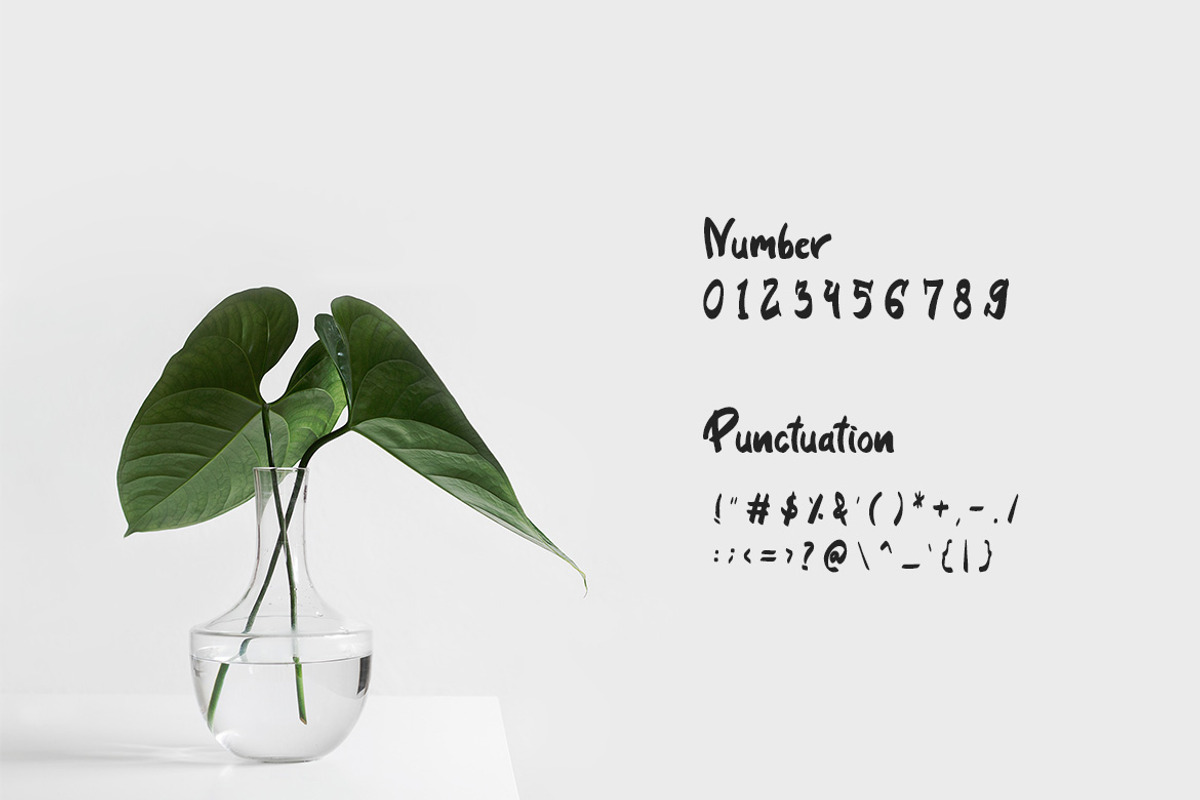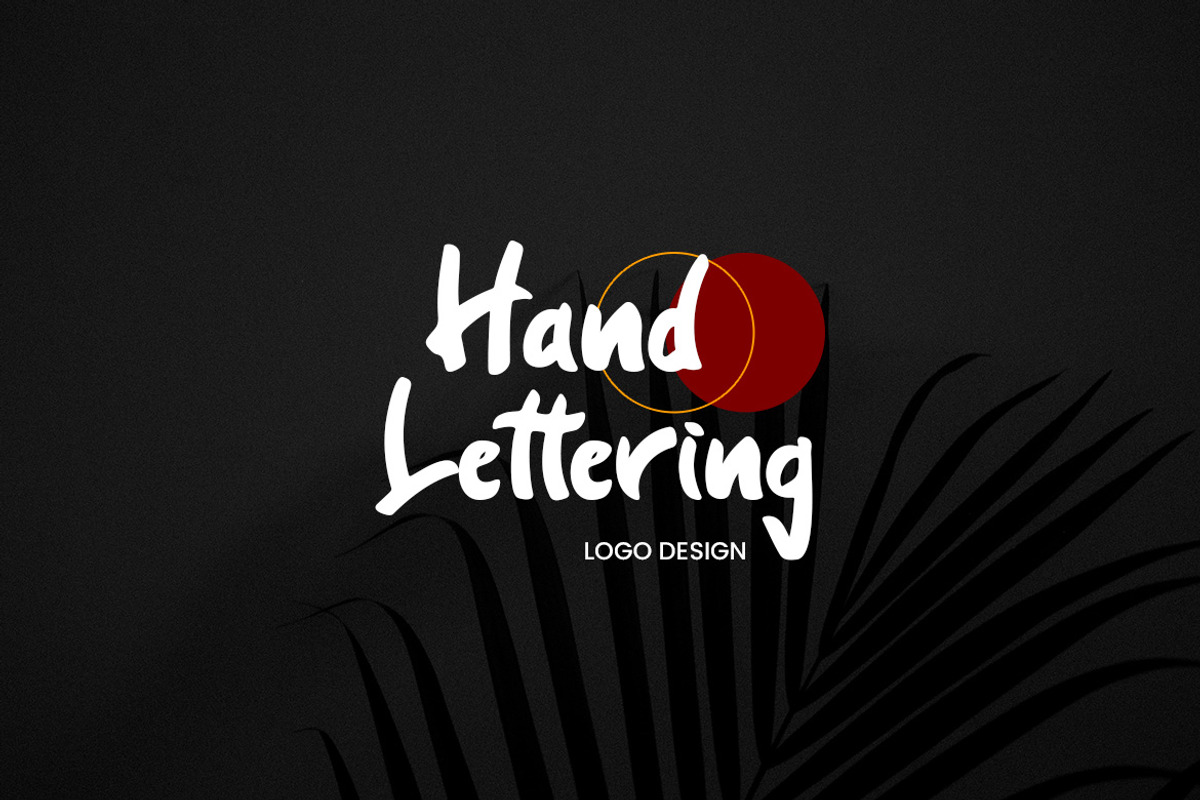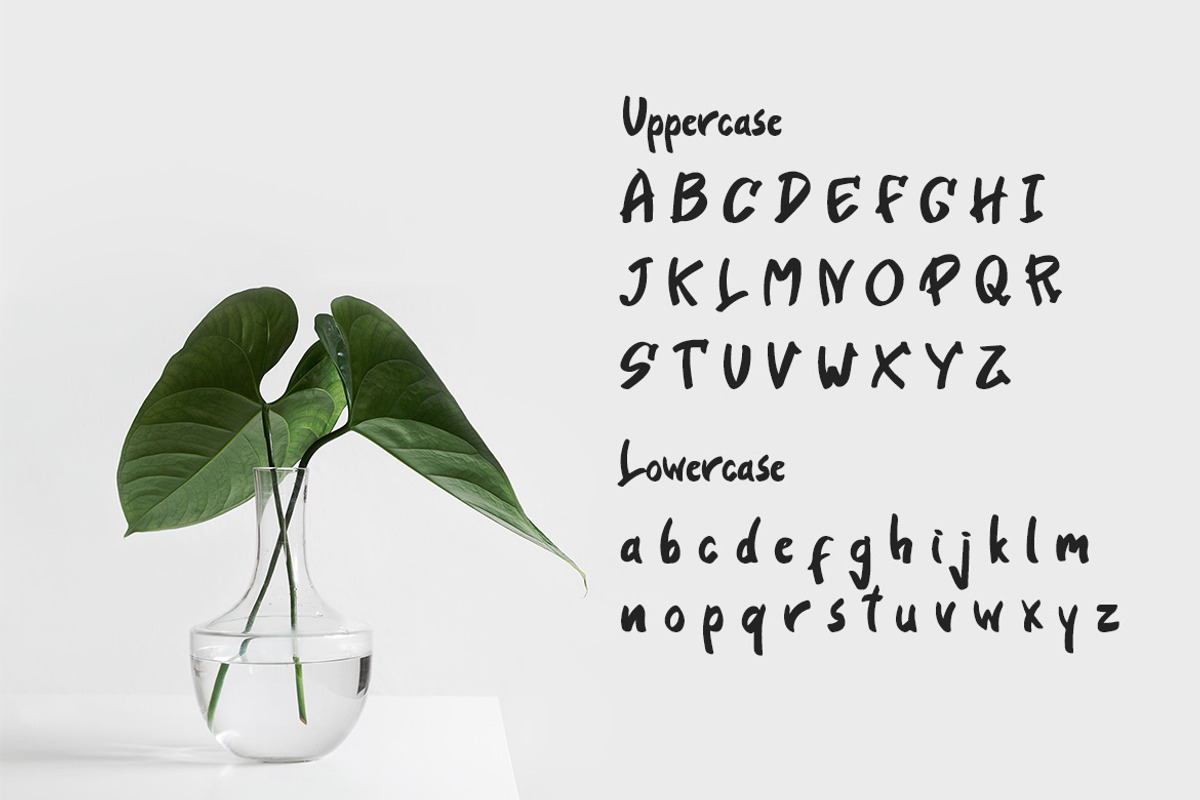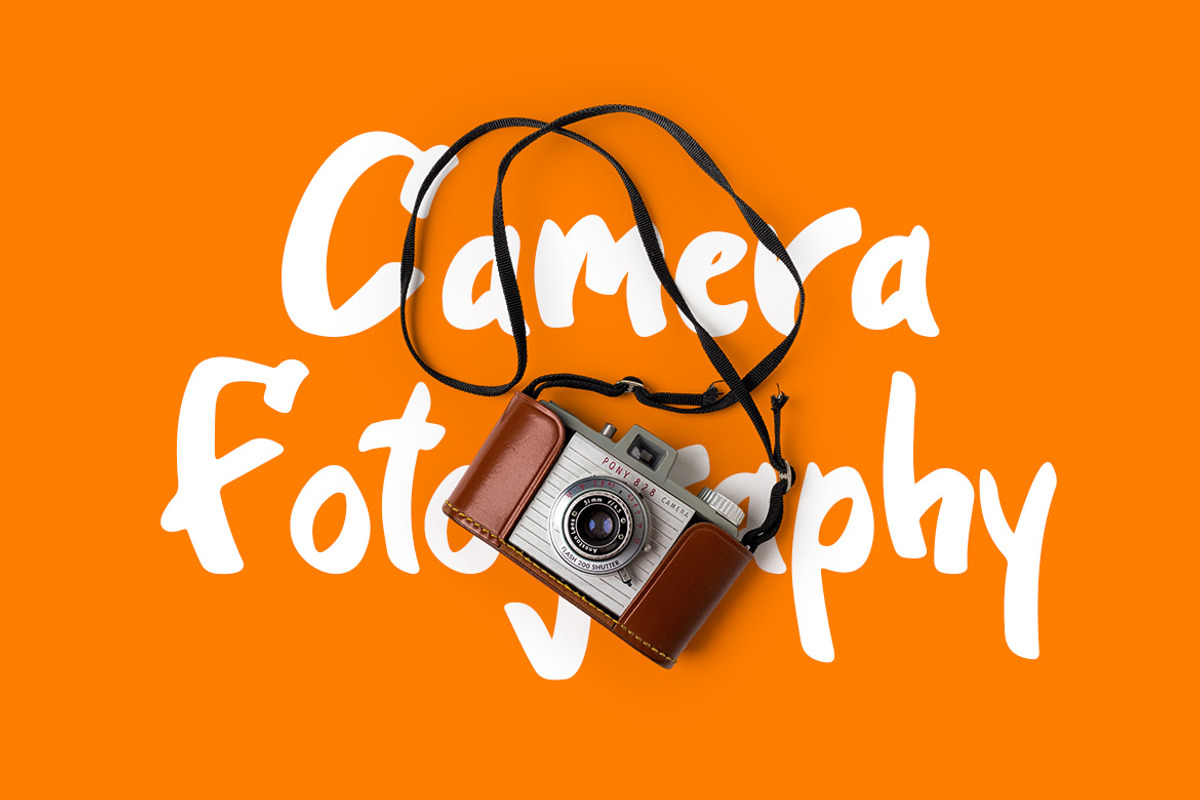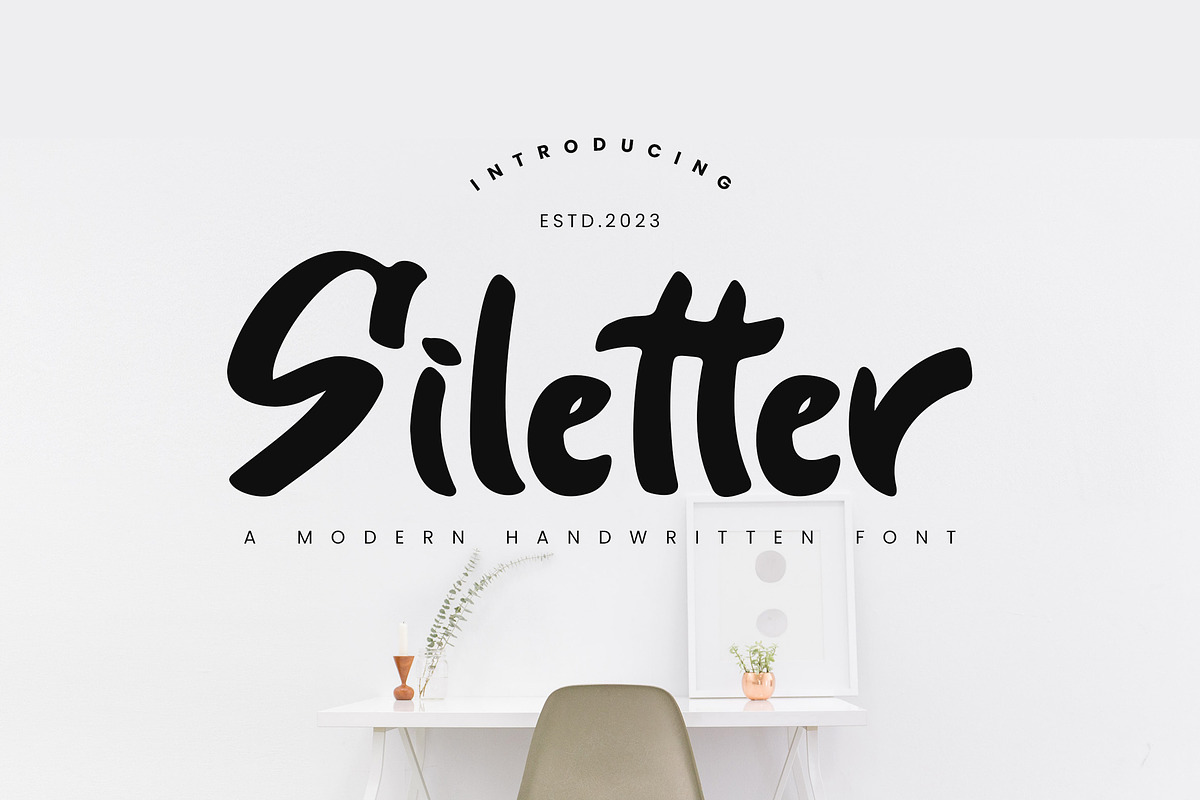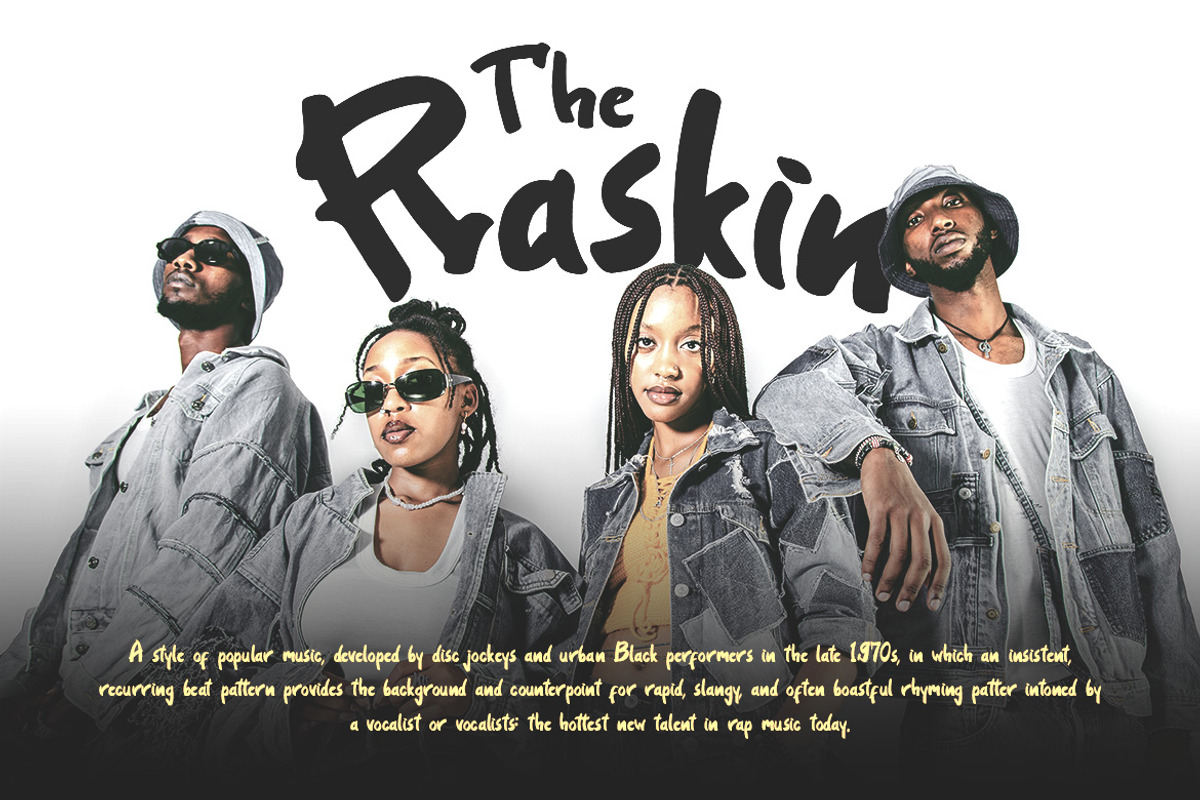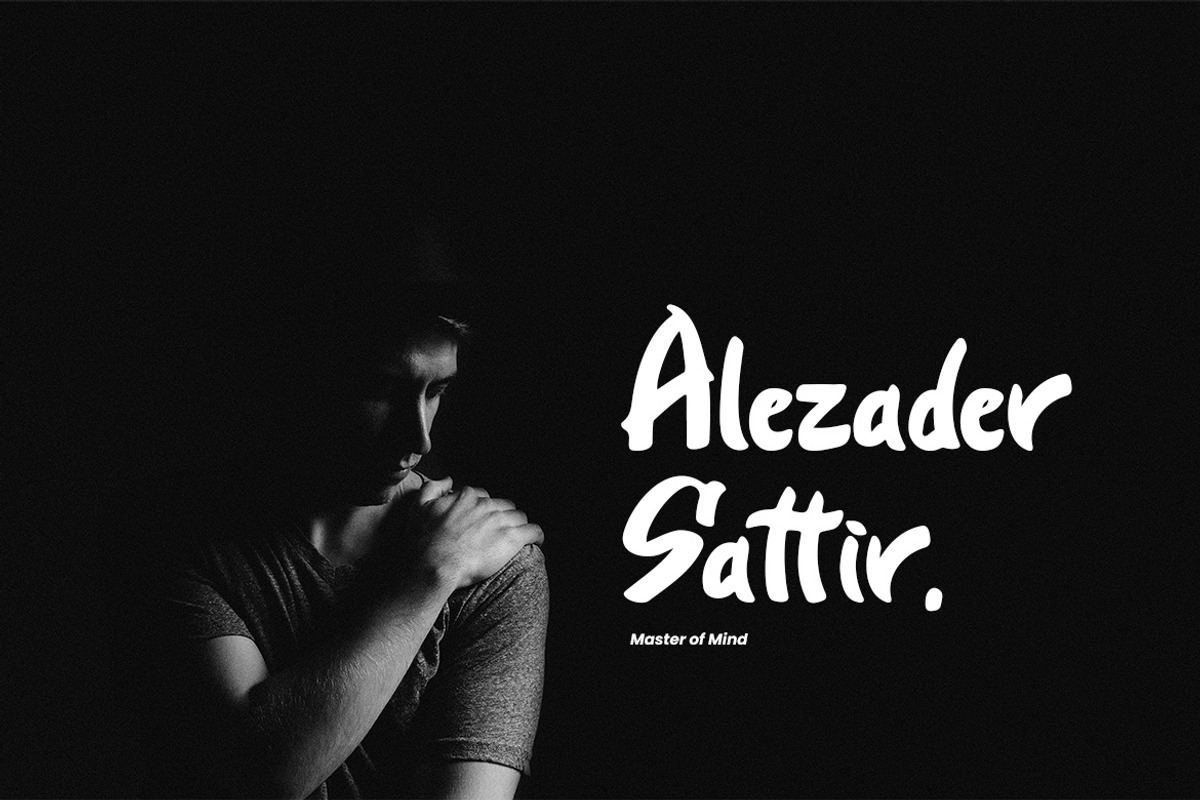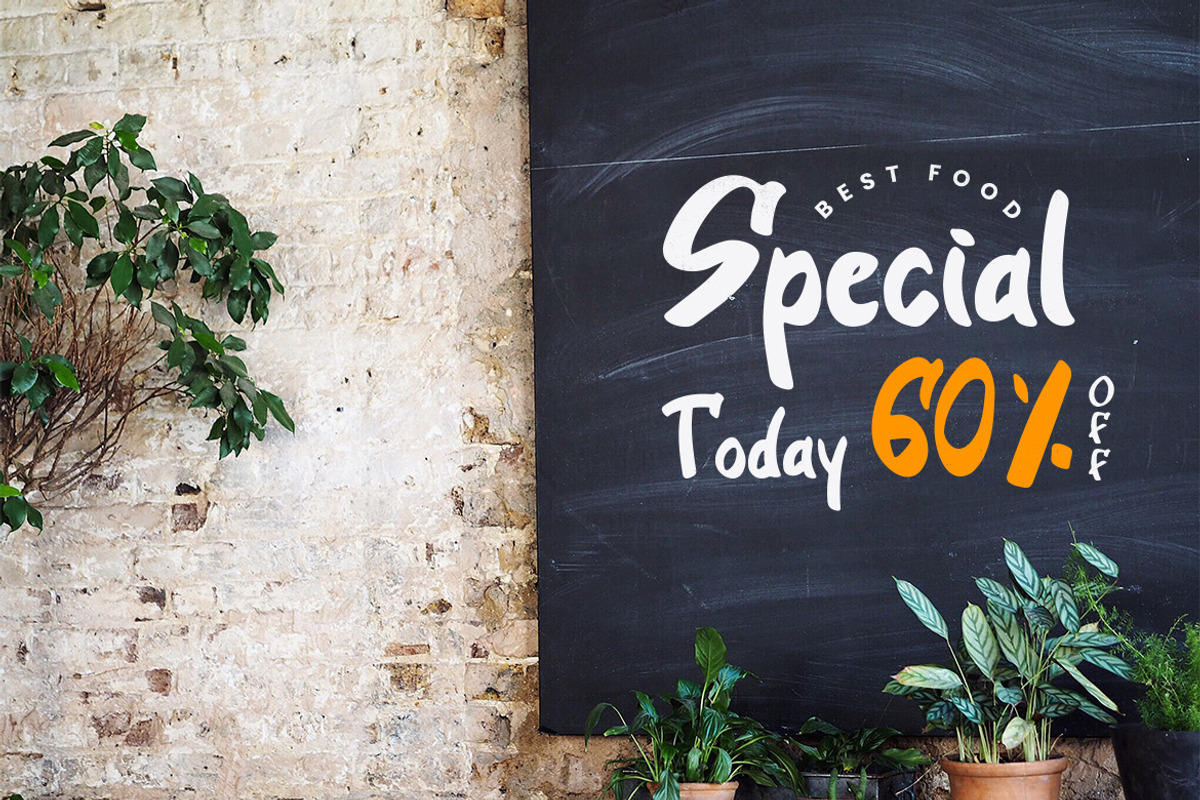
Siletter - Marker Handwritten Font
Siletter is an awesome with modern cutouts, and a dynamic slant. Ideal for Poster titles, menu flyer, Packaging, Logo and monograms or other modern dynamic text. Siletter compares favorably with legibility and size, creating the effect of power. Designed as a fast and dynamic font, but with a slightly different font design, check it out and grab it right away.